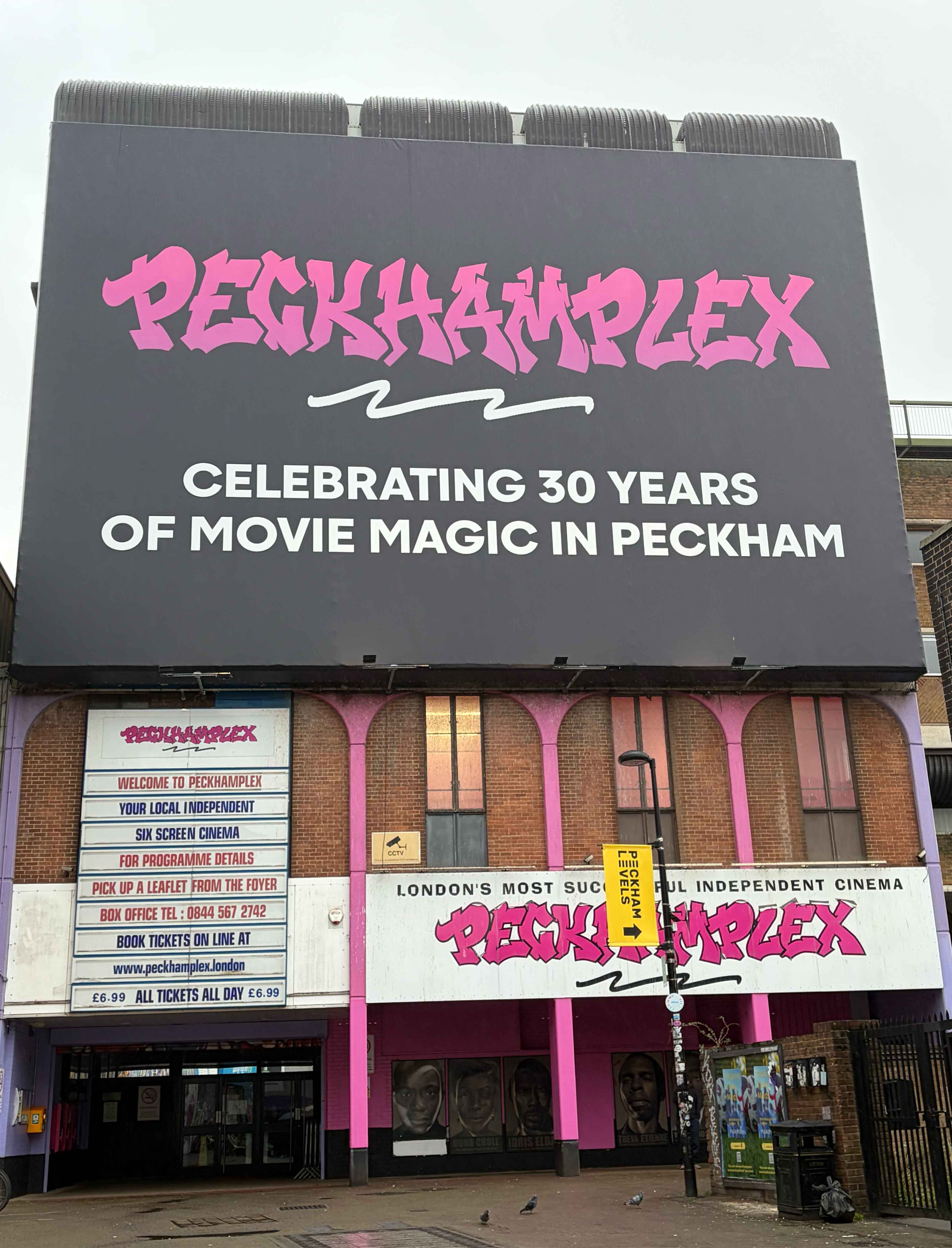
Ticketype
I called my set of fonts Ticketype, a combination of the words ticket and type. The inspiration comes from the fact that my site is peckhamplex, and my font contains the characteristic elements of movie tickets, so it is simple and clear. I think people can directly relate to the relaxed atmosphere brought by movie tickets and theaters when using this font.